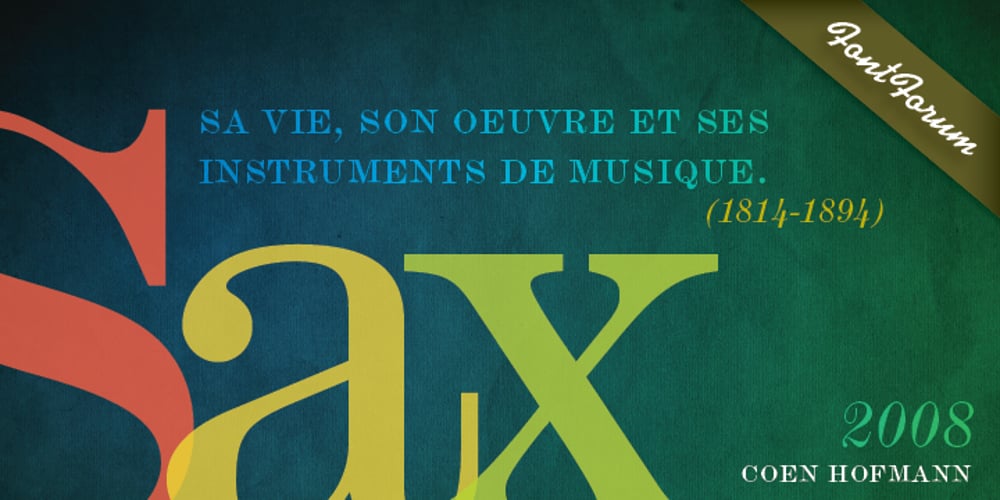
Sax Font Family was designed by Coen Hofmann and published by URW Type Foundry. Sax contains 4 styles and family package options. Sax by Coen Hofmann can be traced back to the ‘Modern Romans’ of the Chicago type founders Barnhart Brothers & Spindler. In 1903 the US Mergenthaler Linotype Co. adapted one of these fonts and added it to their catalog as face No. 1. The English Linotype & Machinery called it No. 35, while the Intertype Corp. copied the face again as No. 1. The name Sax was given in honor of Adolphe Sax, a highly gifted maker of musical instruments, who next to his creation, the saxophone, invented several other wind instruments.